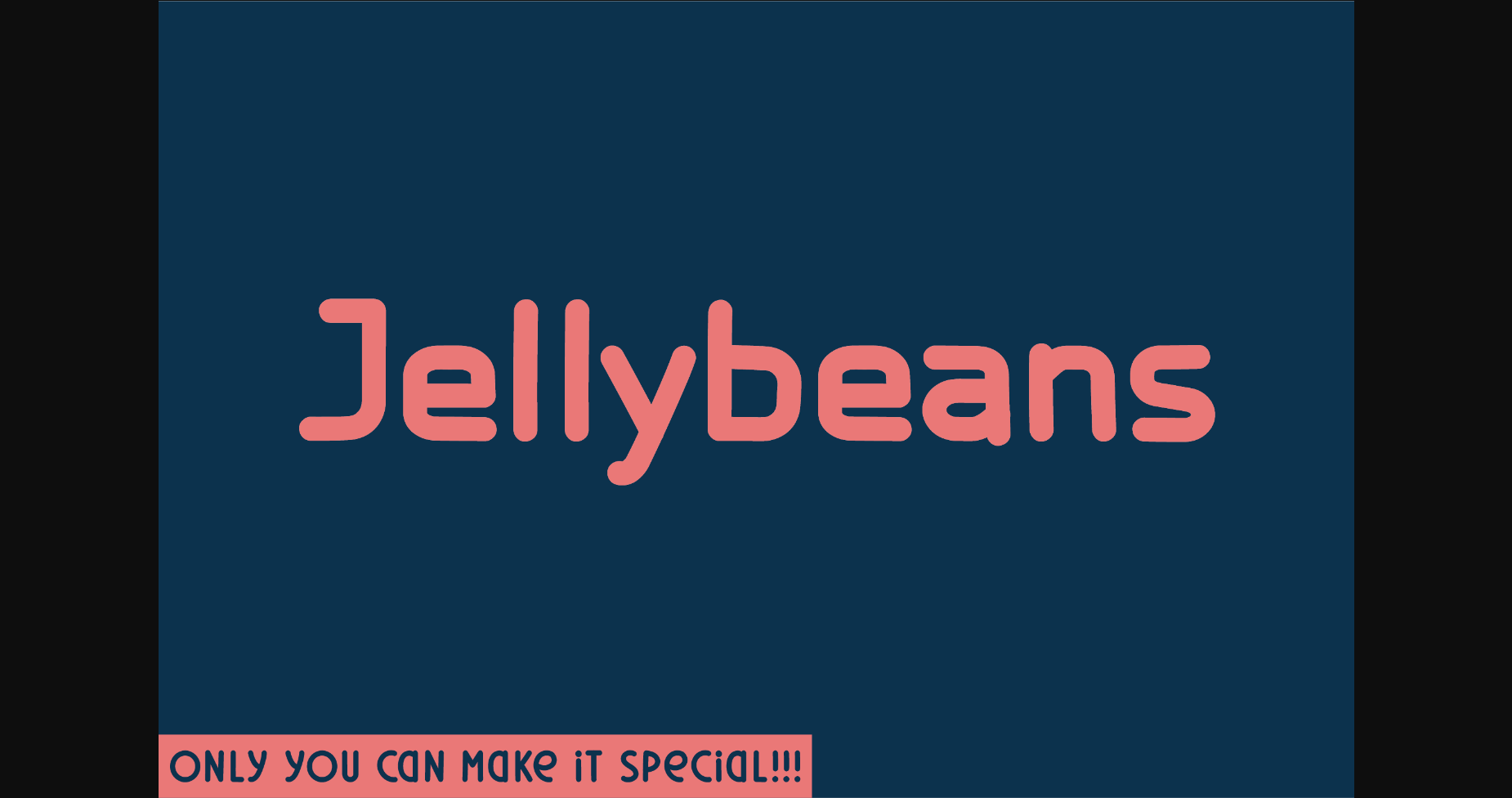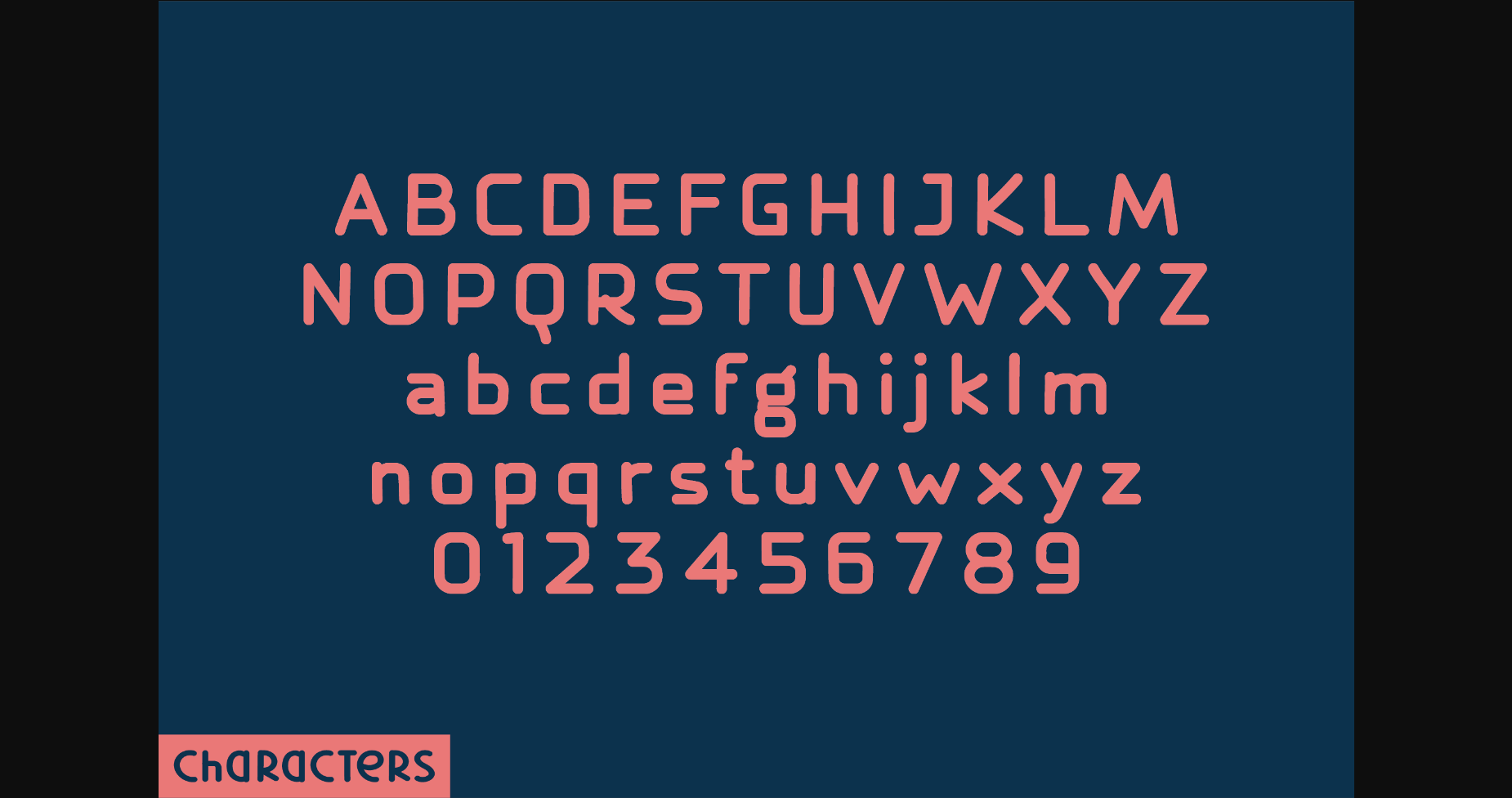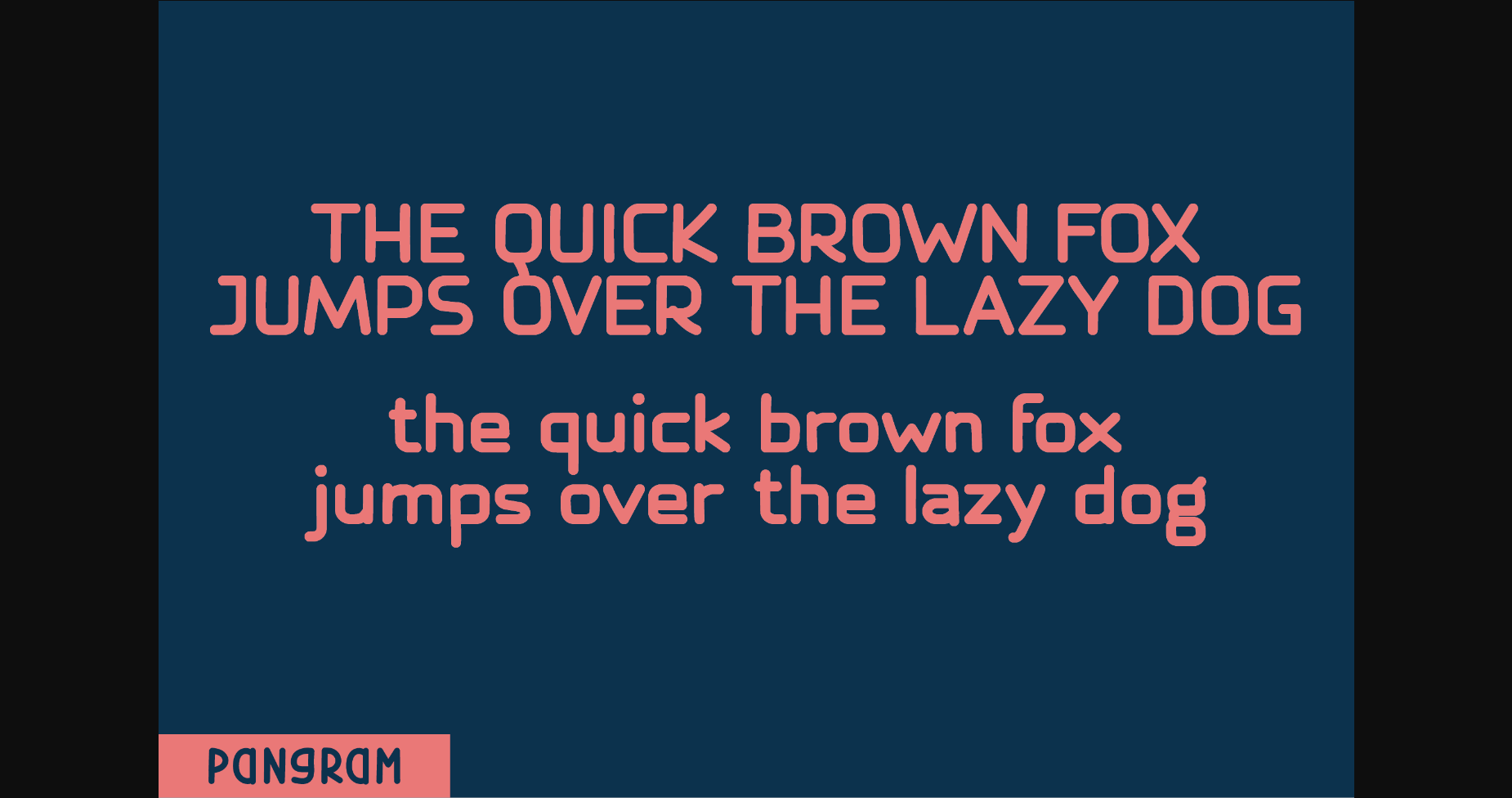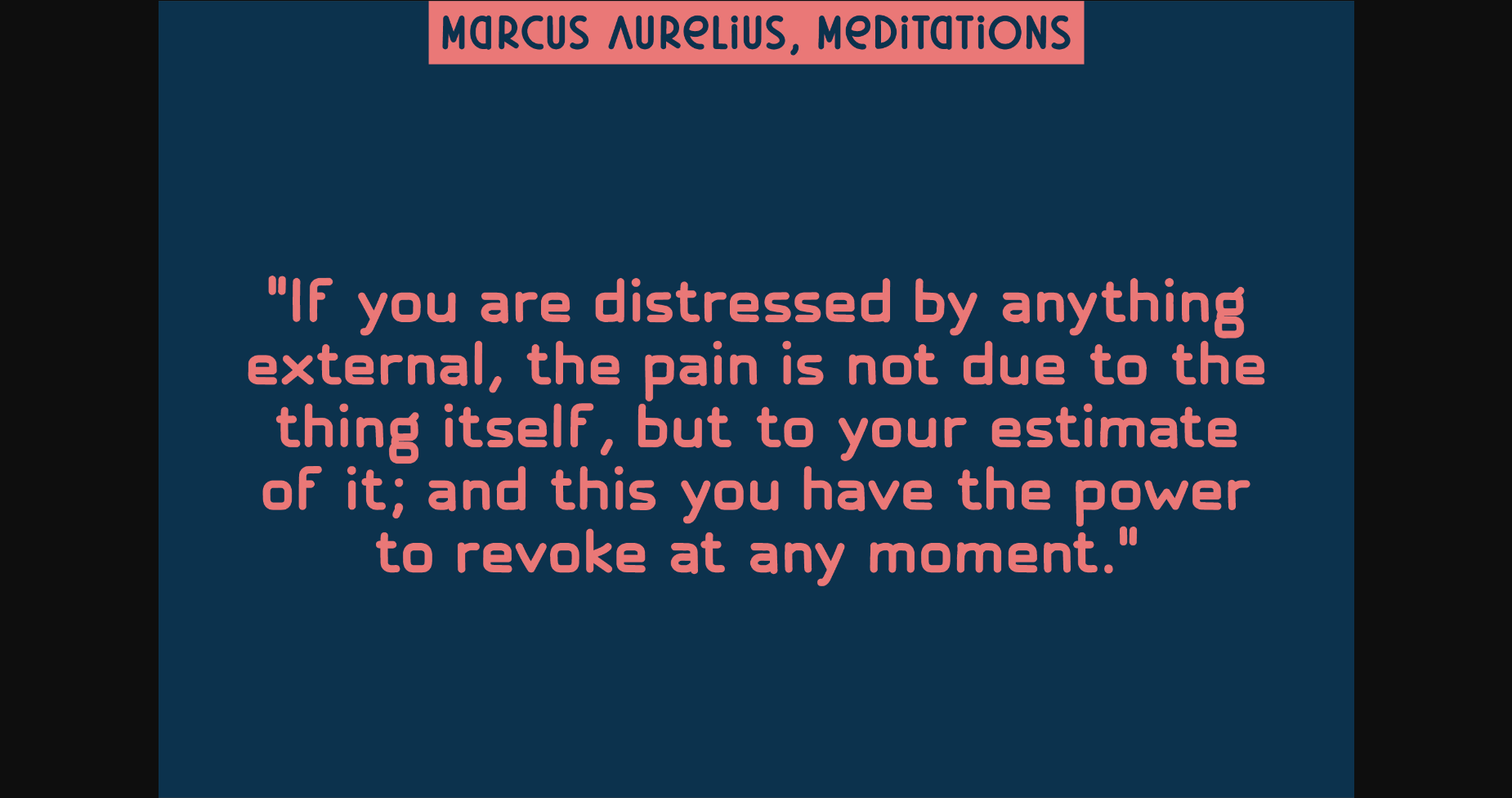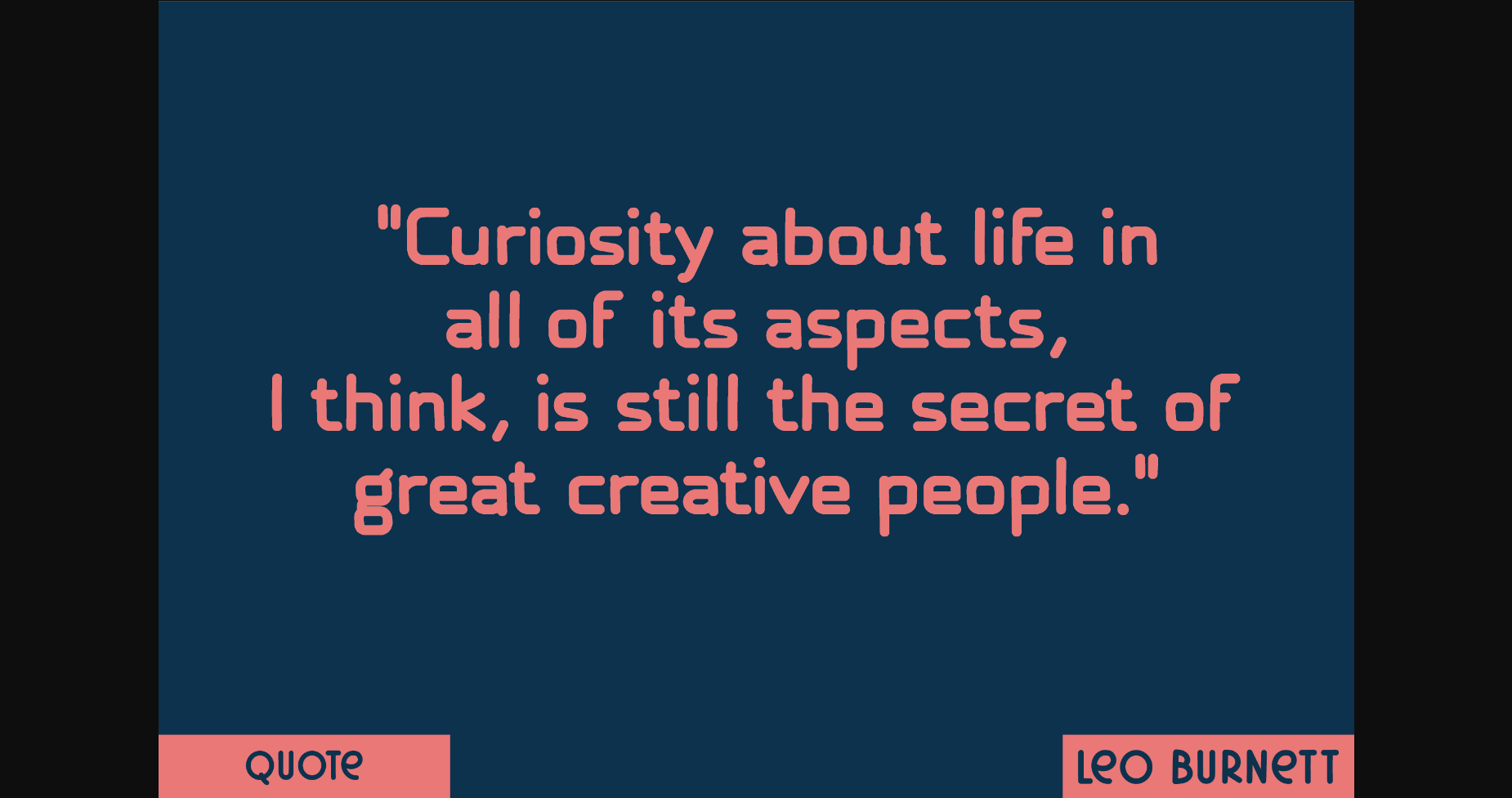
HomeSans Serif FontsJellybeans Font Sans Serif Fonts Jellybeans Font FacebookXPinterestWhatsApp 1 of 7 ... Jellybeans Font Poster 2... Jellybeans Font Poster 3... Jellybeans Font Poster 4... Jellybeans Font Poster 5... Jellybeans Font Poster 6... Jellybeans Font Poster 7... About Jellybeans Font Jellybeans is a bold and unique sans serif font, perfect for quotes, notes, tees, logos, social media and any design that requires a classic touch. DOWNLOAD NOW People also explored Fresh Yellow Font Maple Font Royal Fighter Font Starlight Font Wake Font Krafthouse Font Melisa Font Blackseas Font Serenity 268 0 TagsJellybeans Font Previous articleMarshmallow FontNext articleBouncy Bunny Font LEAVE A REPLY Cancel reply Comment: Please enter your comment! Name:* Please enter your name here Email:* You have entered an incorrect email address! Please enter your email address here Website: Save my name, email, and website in this browser for the next time I comment. Personal Use Free Helsinki Personal Use Free Read more about this font Letter Hanger Personal Use Free Read more about this font Pelmeshka Personal Use Free Read more about this font Adelfa Personal Use Free Read more about this font BLOG Transform Your Website: Elevate Your Typography with 7 Best Web Font Generators Are you ready to transform your website's typography from ordinary to extraordinary? Great! Today, we're diving into the world of web font generators, which... Free vs Paid Fonts: Why Investing in Premium Fonts Is Worth It Top 10 Handwritten Fonts That Elevate Your Designs Fonts That Capture the Spirit of New York City